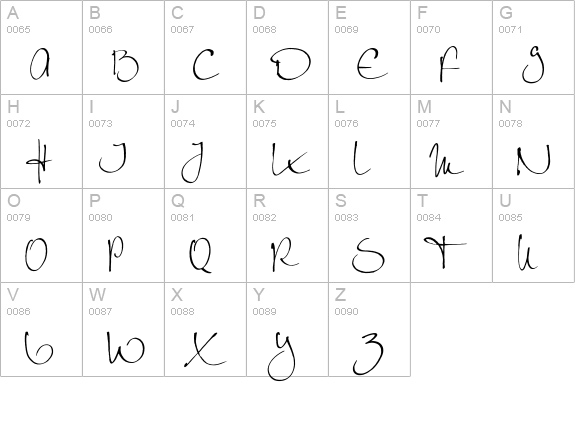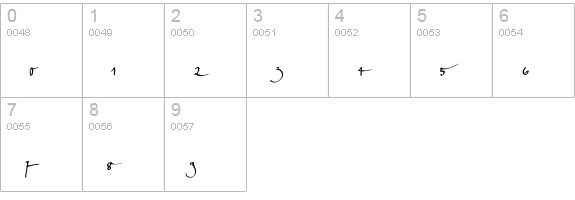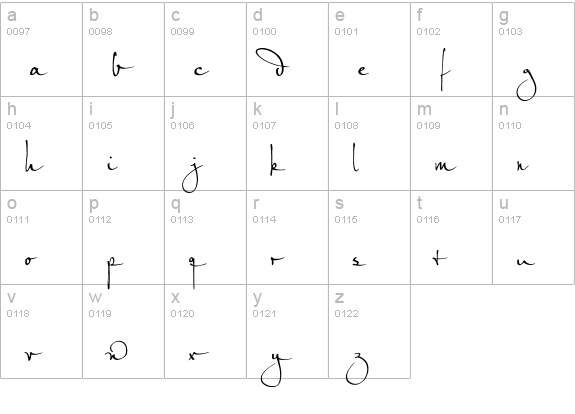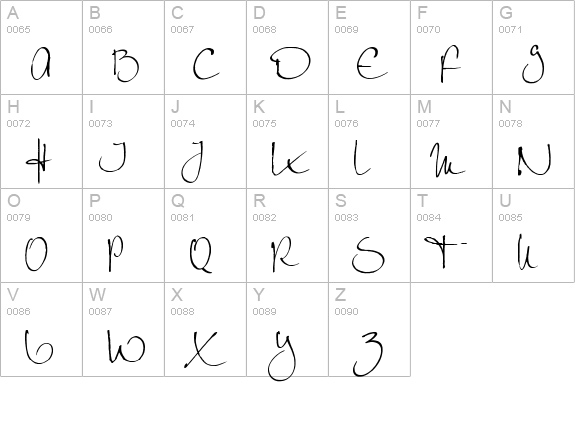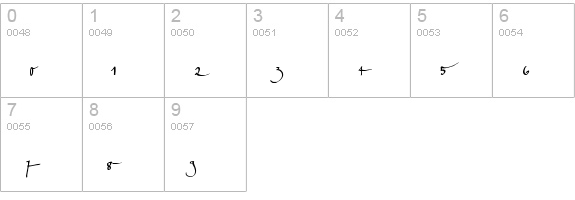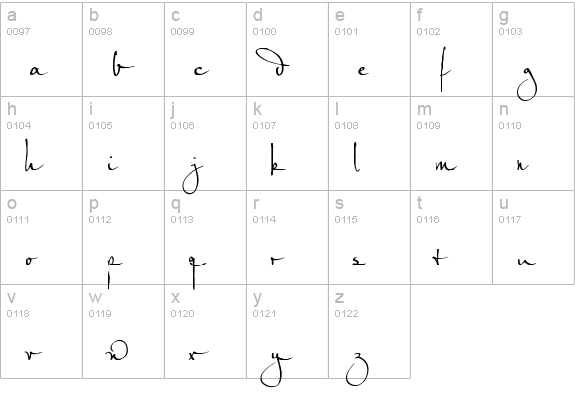
PetraScriptEF-Alternate Font Details
Introducing PetraScriptEF-Alternate font, a stunning and versatile typeface that will add a touch of elegance to any design project. With its intricate and flowing letterforms, PetraScriptEF-Alternate captures the essence of timeless calligraphy, making it the perfect choice for invitations, wedding stationery, branding, and more. This font offers a unique twist on the original PetraScriptEF font, presenting an alternate version that adds even more character and creativity to your designs. Each letter is carefully crafted with attention to detail, resulting in a harmonious balance between legibility and artistic flair. But the best part? PetraScriptEF-Alternate is completely free! Yes, you read that right. This remarkable font is freely available to download at FontsMarket.com, allowing you to enhance your projects without breaking the bank. Whether you're a professional designer or a hobbyist, this font provides you with the opportunity to create stunning visuals without any cost. So why wait? Unlock your creativity and elevate your designs with PetraScriptEF-Alternate font. Download it today from FontsMarket.com and let your imagination run wild. Impress your clients, captivate your audience, and make a lasting impression with this beautiful and freely accessible typeface.